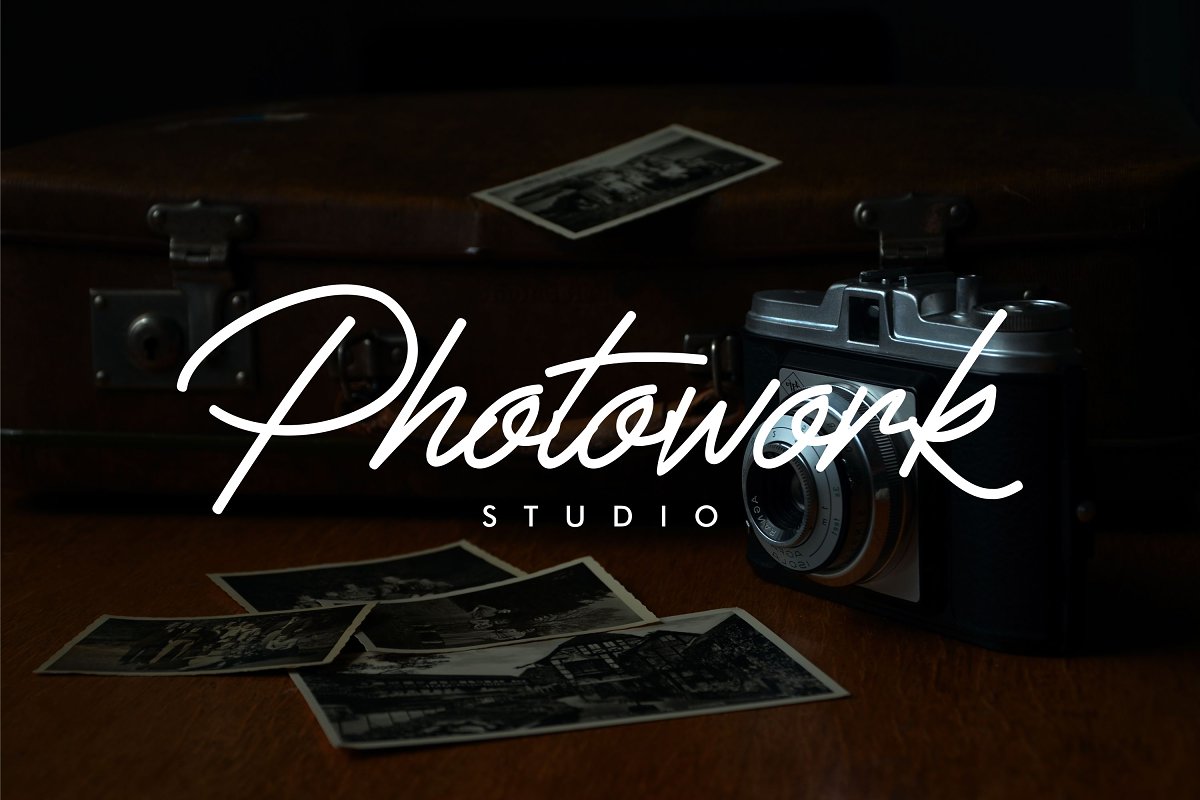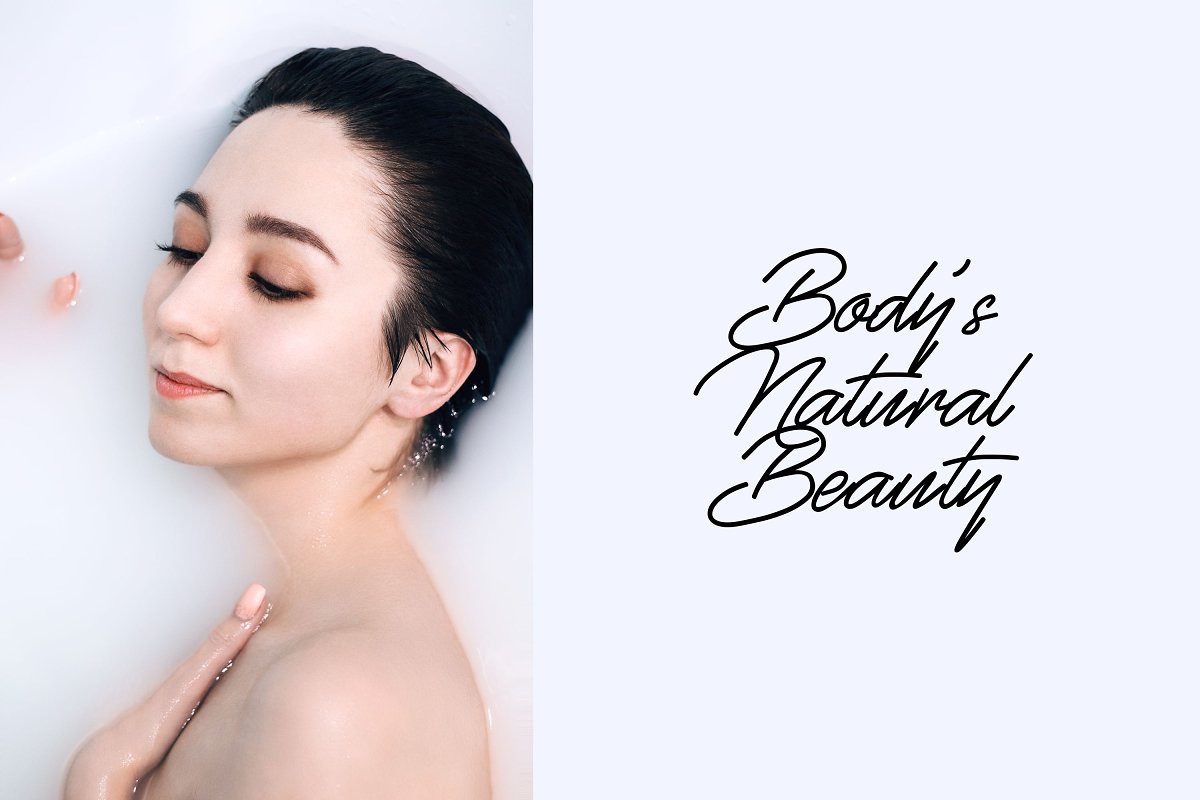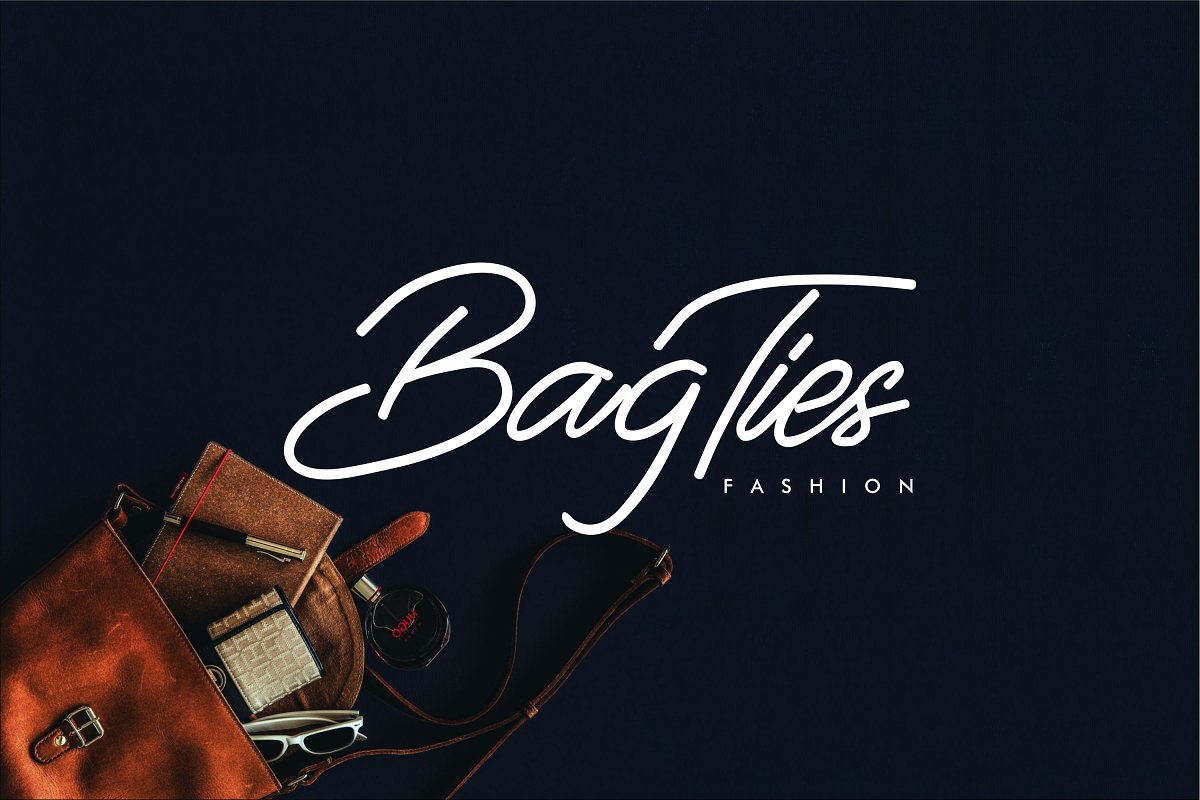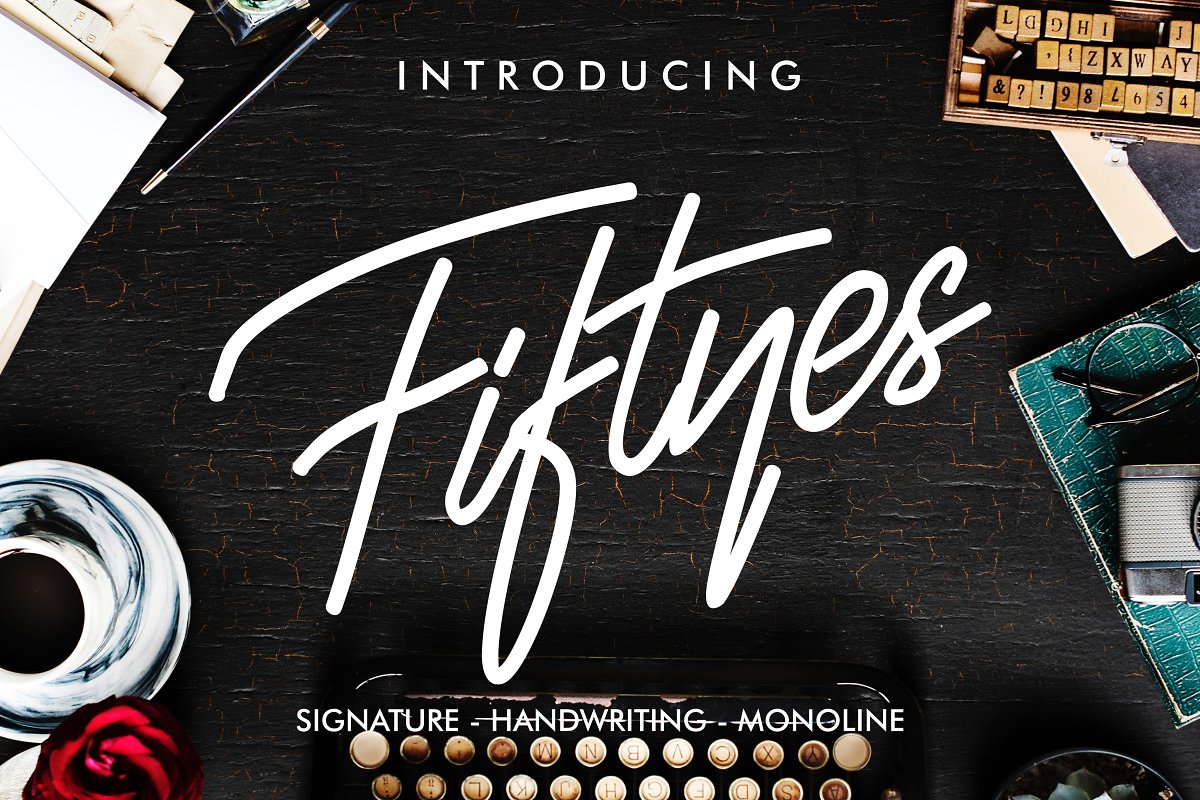
Fiftyes Signature Font
This is an elegant and youthful handwritten script font, will allow you to create elegant works. Introducing Fiftyes Font. FIFTYES is a concept of touch of feminime, masculine and modern hand writing. FIFTYES Font is perfect for branding, signatures, watermarks, business cards, clothing, magazines, web, and other design projects.